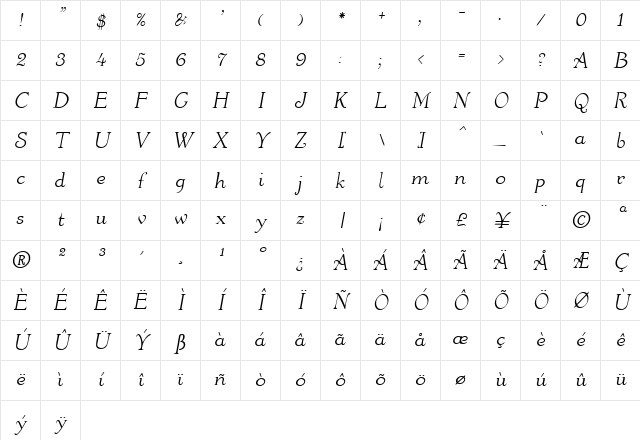
4ArmJoltScript Regular
Complete 4ArmJoltScript Regular glyph index. Displaying only characters natively supported by 4ArmJoltScript Regular font.
Design Context for 4ArmJoltScript
4ArmJoltScript flows with the natural rhythm of handwritten lettering, making it ideal for designs that call for warmth and personal expression.
Font Pairing: Combine 4ArmJoltScript with a simple geometric sans for maximum contrast - the tension between flowing curves and clean structure is a classic typographic pairing.
Pro Tip: Use 4ArmJoltScript for short runs of text - names, titles, or taglines. Extended body copy in script faces tires the eye quickly.